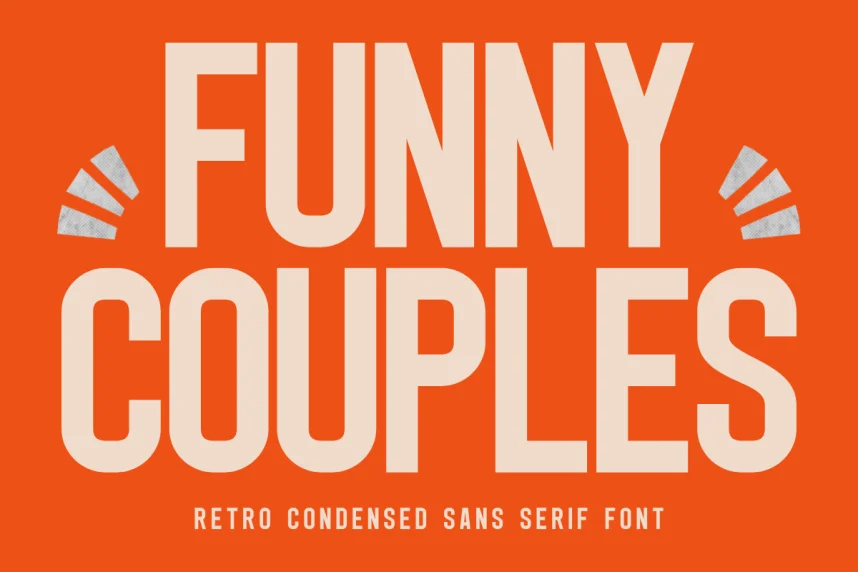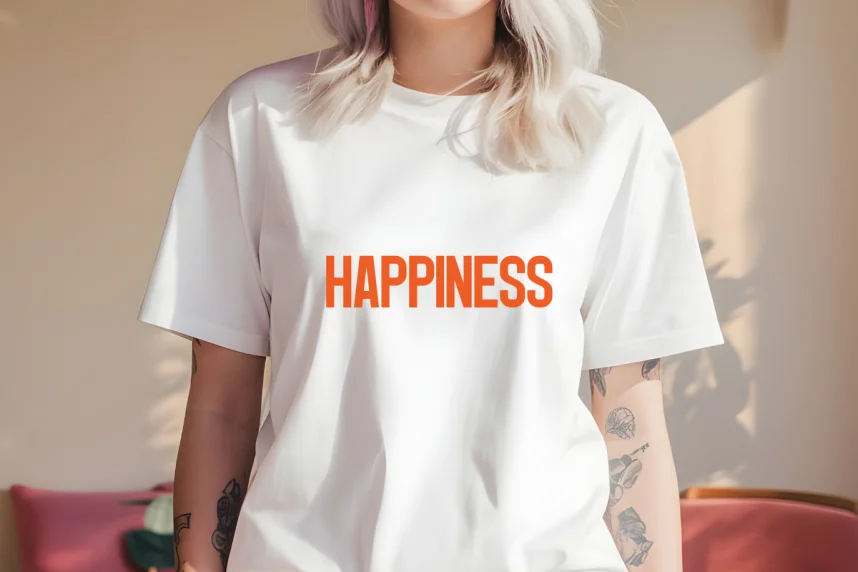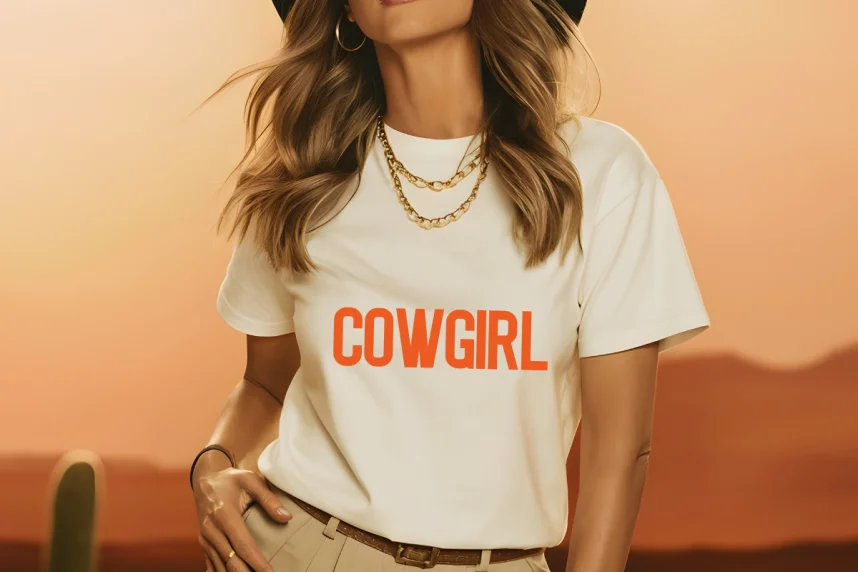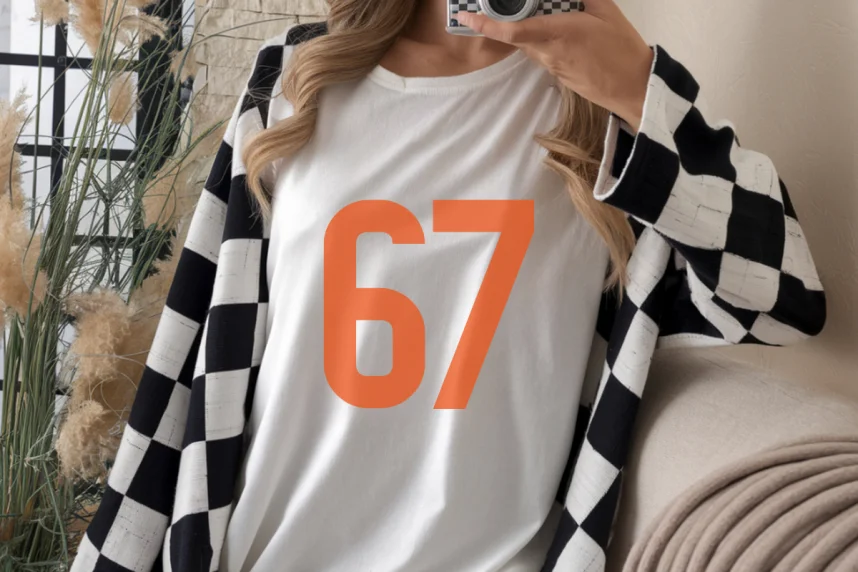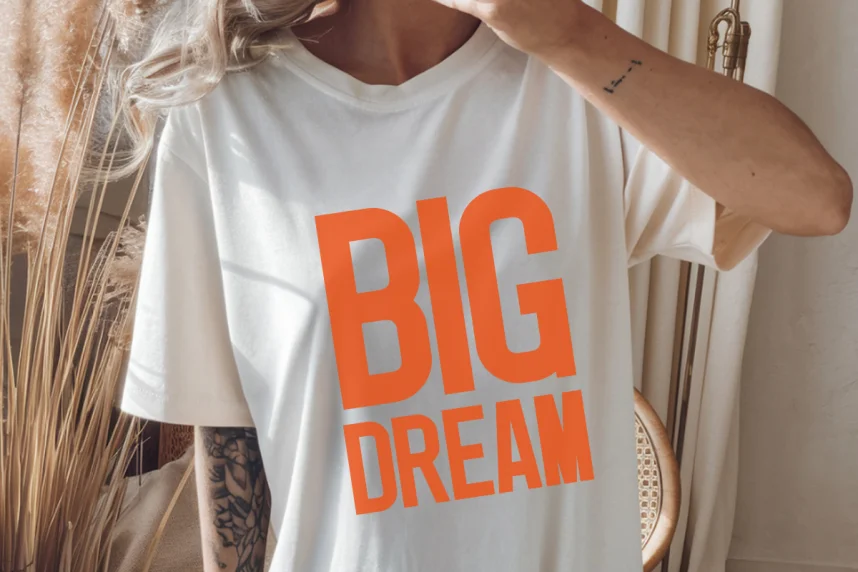
Funny Couples Font is a handwritten script designed to solve challenges in adding personality to invitations, branding, and digital signatures. Designers require natural, legible scripts that feel human while remaining readable across sizes.
The font features smooth, flowing strokes, cursive ligatures, and moderate slant angles. Its letterforms include playful swashes without compromising clarity, making it ideal for wedding invitations, social media posts, and personalized branding assets.